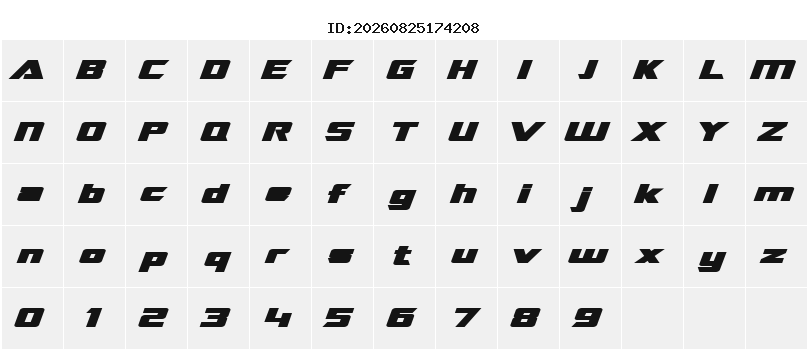
• Font Name: SF TransRobotics Extended
• Font ID: SF TransRobotics Extended Bold Italic
• Full Font Name: SF TransRobotics Extended Bold Italic
• Version: v1.2 - 8/29/99
• PostScript Name: SFTransRoboticsExtendedBoldItalic
• Character Count: 189
About SF TransRobotics Extended.ttf
SF TransRobotics Extended.ttf is a modern, elegant sans-serif font designed for ultimate readability and visual harmony. Perfect for branding, headlines, web design, and print materials.